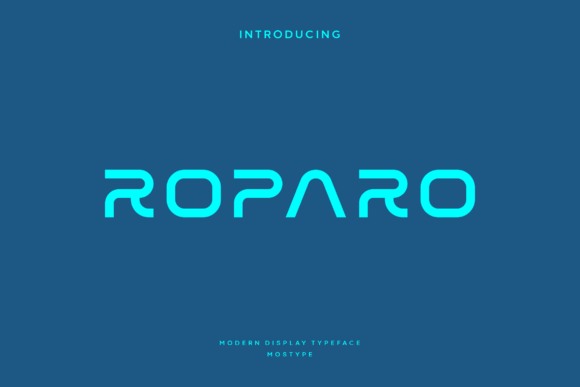
Roparo Font: A Chunky Sans-Serif Font for Stunning Logos and Branding
In the world of typography, fonts play a crucial role in creating a lasting impression on audiences. A well-designed font can elevate a brand’s identity and make it stand out from the competition. One such font that has gained popularity among designers and brands is the Roparo Font. In this article, we’ll delve into the features, benefits, and uses of the Roparo Font, and explore why it’s an excellent choice for logos, branding, and various design projects.
What is Roparo Font?
Roparo is a sans-serif font designed specifically for logos and branding. Its chunky personality makes it perfect for headlines, titles, and sentence case. The font’s in characters were built with a bold and sturdy approach, giving it a unique and recognizable look.
Key Features of Roparo Font
- Chunky Personality: Roparo Font boasts a chunky personality that makes it stand out from other sans-serif fonts.
- Legibility: Despite its bold design, Roparo Font is highly legible, even in sentence case.
- Versatility: Roparo Font is suitable for various design projects, including logos, branding, invitations, stationery, and more.
- Modern Look: The font’s modern design makes it perfect for contemporary brands and designs.
Uses of Roparo Font
Roparo Font is an incredibly versatile font that can be used for a wide range of design projects. Here are some of the most popular uses of Roparo Font:
- Logos and Branding: Roparo Font is designed specifically for logos and branding, making it an excellent choice for creating a strong brand identity.
- Crafting and Invitations: The font’s chunky personality makes it perfect for crafting and invitation designs.
- Stationery and Wedding Designs: Roparo Font is suitable for designing stationery, wedding invitations, and other special event materials.
- Social Media Posts and Advertisements: The font’s modern look and legibility make it an excellent choice for social media posts and advertisements.
- Product Packaging and Labels: Roparo Font can be used for product packaging, labels, and other marketing materials.
- Posters and Photography: The font’s bold design makes it perfect for creating stunning posters and photography designs.
Benefits of Using Roparo Font
Roparo Font offers several benefits to designers and brands. Here are some of the most significant advantages of using Roparo Font:
- Unique Identity: Roparo Font helps create a unique identity for brands, setting them apart from competitors.
- Improved Legibility: The font’s legibility ensures that messages are conveyed clearly and effectively.
- Versatility: Roparo Font can be used for various design projects, making it a valuable addition to any designer’s toolkit.
- Time-Saving: With Roparo Font, designers can save time and effort, as the font is easy to read and understand.
Tips for Using Roparo Font
To get the most out of Roparo Font, here are some tips for using it effectively:
- Use it for Headlines and Titles: Roparo Font is perfect for headlines and titles, where its chunky personality can shine.
- Experiment with Colors and Sizes: Try out different colors and sizes to create visual interest and emphasize key messages.
- Pair it with Other Fonts: Roparo Font can be paired with other fonts to create a unique and visually appealing design.
- Keep it Simple: Don’t overcomplicate your design – keep it simple and clean to let Roparo Font shine.
Roparo Font is a versatile and modern sans-serif font that’s perfect for logos, branding, and various design projects. Its chunky personality, legibility, and versatility make it an excellent choice for designers and brands looking to create a strong visual identity. With its wide range of uses and benefits, Roparo Font is sure to become a staple in any designer’s toolkit.